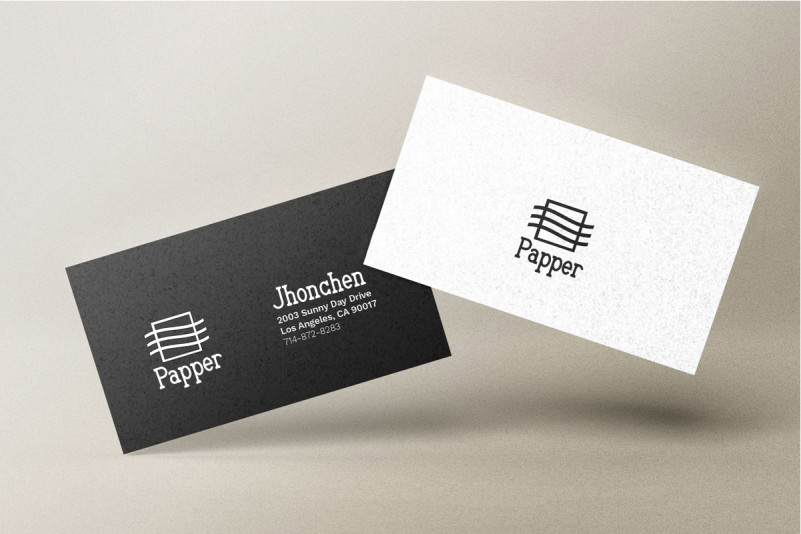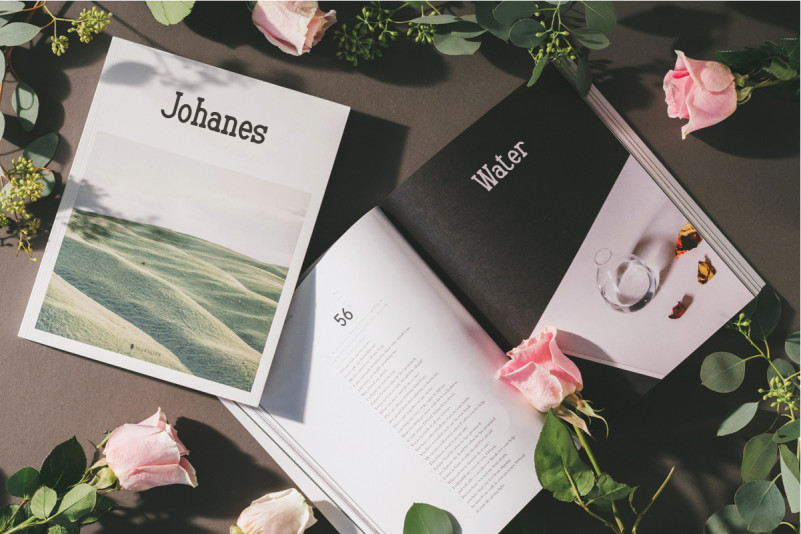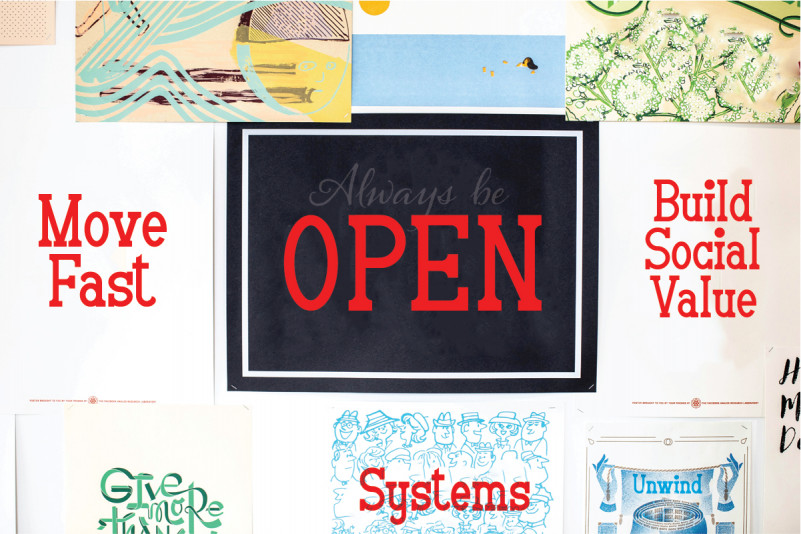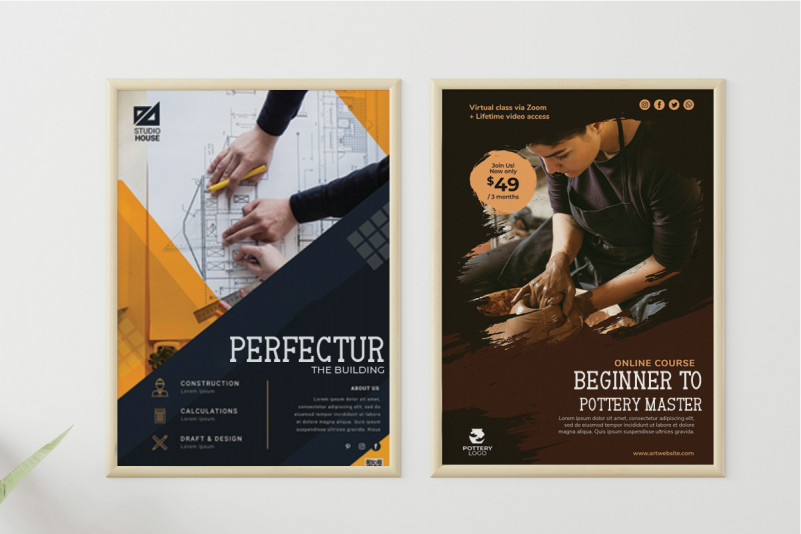
Mailgram Slab Serif Font
This is a unique display Serif font. It has vintage look, old and stylish style. This font is remotely made by RaisProject team in Indonesia. The font was handcrafted for any your special projects including : headlines, promotion, events, branding, advertising, magazine, signage, invitation, stationery, social media posts, label, or and any projects that need unique strong style. The industries for this font is Game, Magazine, Music, Fashion etc. Mailgram Font includes full set of gorgeous letters ,numerals etc